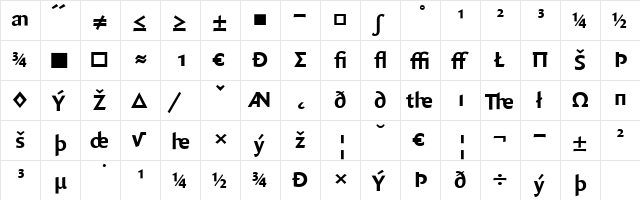
QuadraatSans Bold
| Foundry | Fred Smeijers, . Published by FontShop International. FontFont Release |
Design Context for QuadraatSans Typeface
QuadraatSans is a composed and adaptable typeface that performs quietly and consistently across a wide range of design contexts. The heavy weight commands attention and anchors typographic hierarchies.